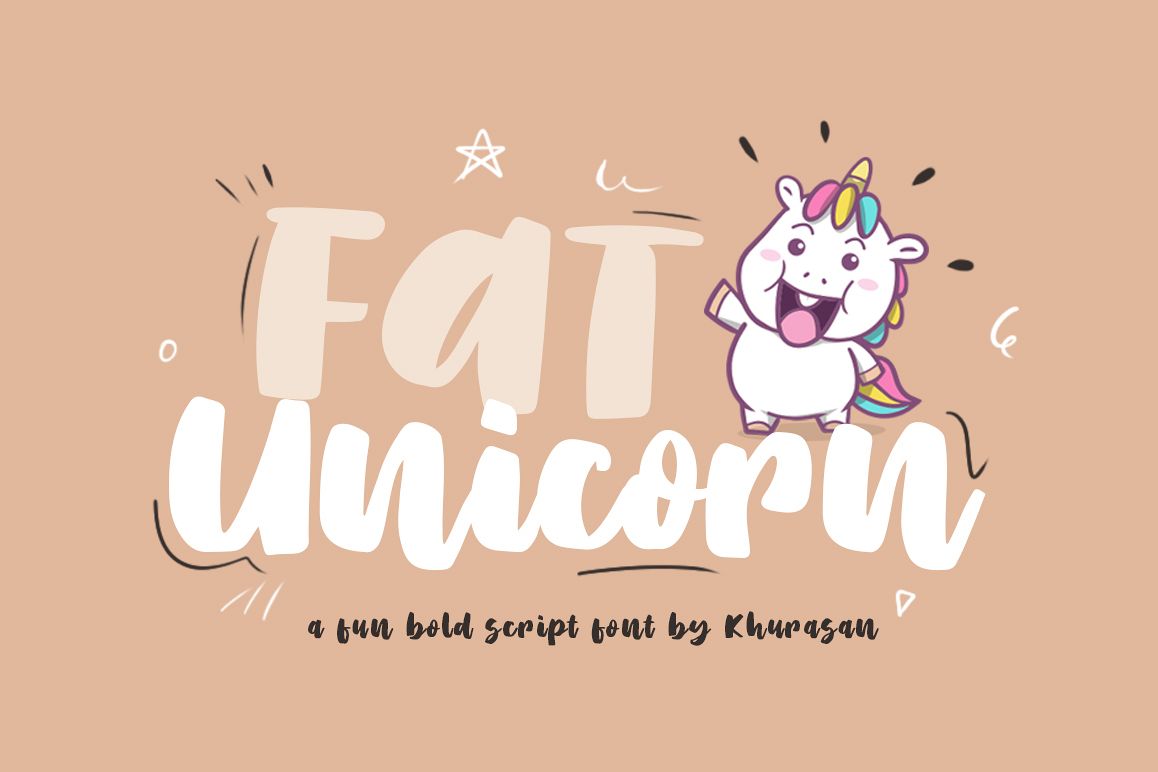
Introducing, Fat Unicorn font a fun bold Script typeface with cheerful theme for your fun project. Fat Unicorn font suitable for logo, branding, greeting card, poster and any design that you create. Files included: